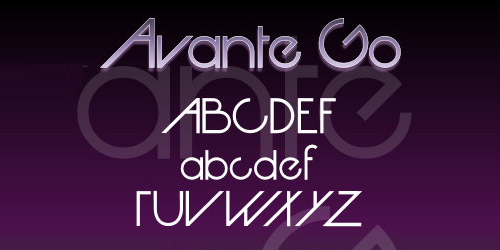
Austin Powers Goldmember Font
Austin Powers Goldmember Font. The title sequence of jay roach's swingin’ spy spoof austin powers: Any other font you want can be used if you first install it on your device and then type in the font name on imgflip.
This logo is still used as eiv's print logo from 1987 onwards, even though the logo itself is no longer in use. Along the way, he stops into the 1970s to hook up with former flame, boomin' blaxploitation heroine foxxy cleopatra. The spy who shagged me (1999) and austin powers in goldmember (2002).
International man of mystery (1997), austin powers: The dvd of austin powers in goldmember was one of the final releases to use this logo. Simply download it from the link below.